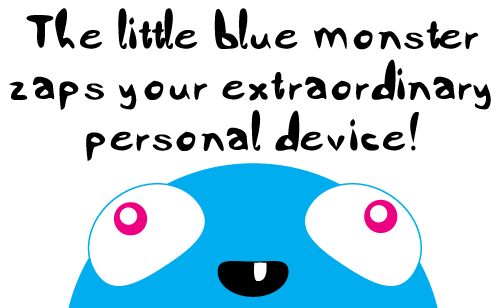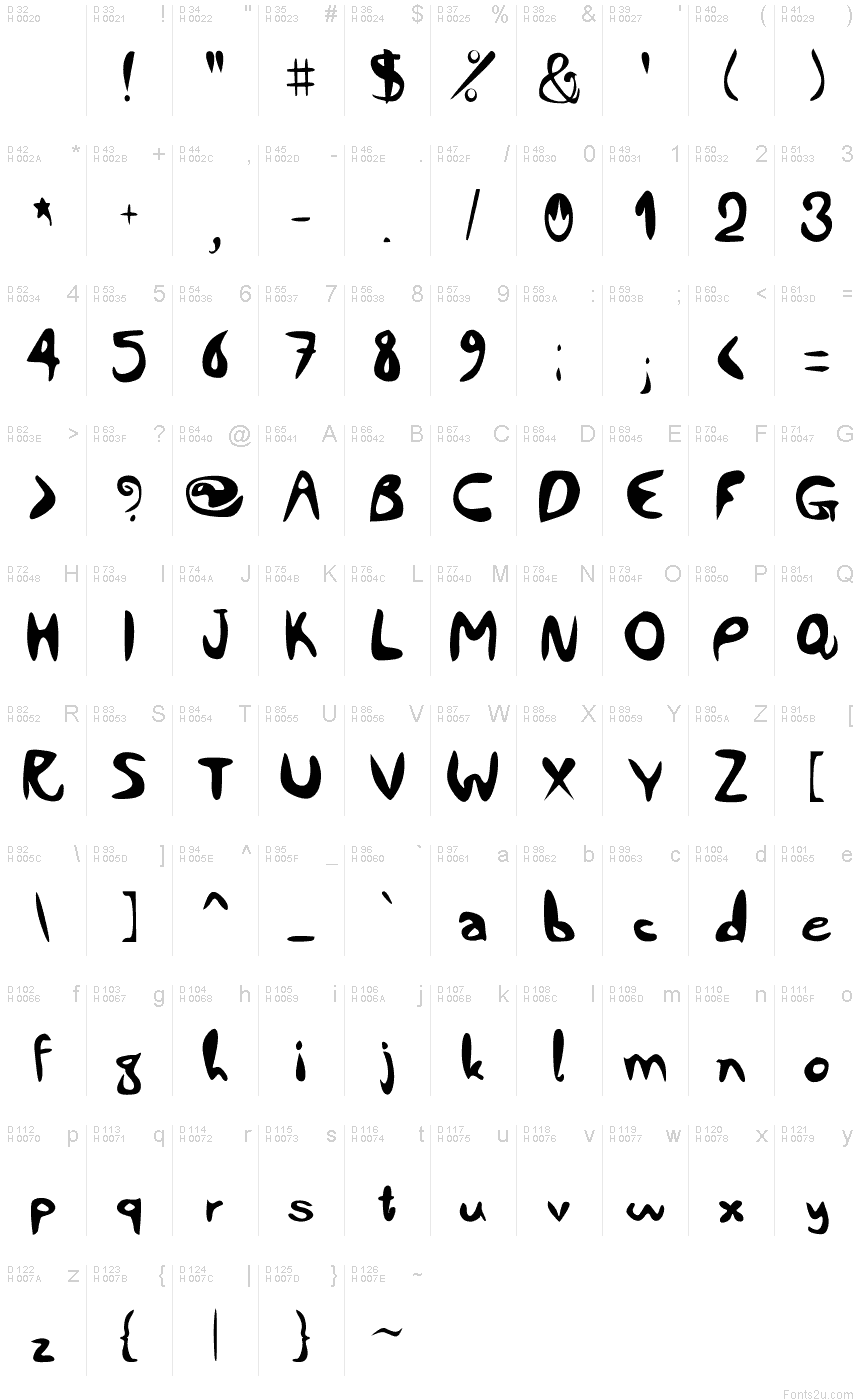
Comiccity
This is a font I made inspired by Comic Sans MS and I Hate Comic Sans :)
This unique font has as characteristical attribute the low-detailed curves.Unpractical but funny!